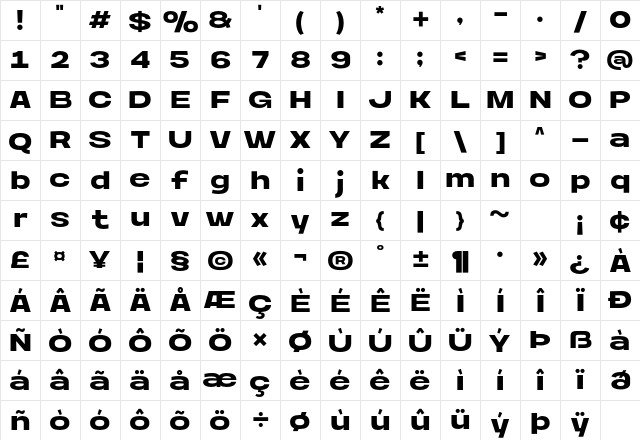
Complete Aniko Semibold Regular glyph index. Displaying only characters natively supported by Aniko Semibold Regular font.
Aniko Semibold is a composed and adaptable typeface that performs quietly and consistently across a wide range of design contexts. Its bold stroke weight gives it real presence on the page.
Who designed the Aniko Semibold Regular font?